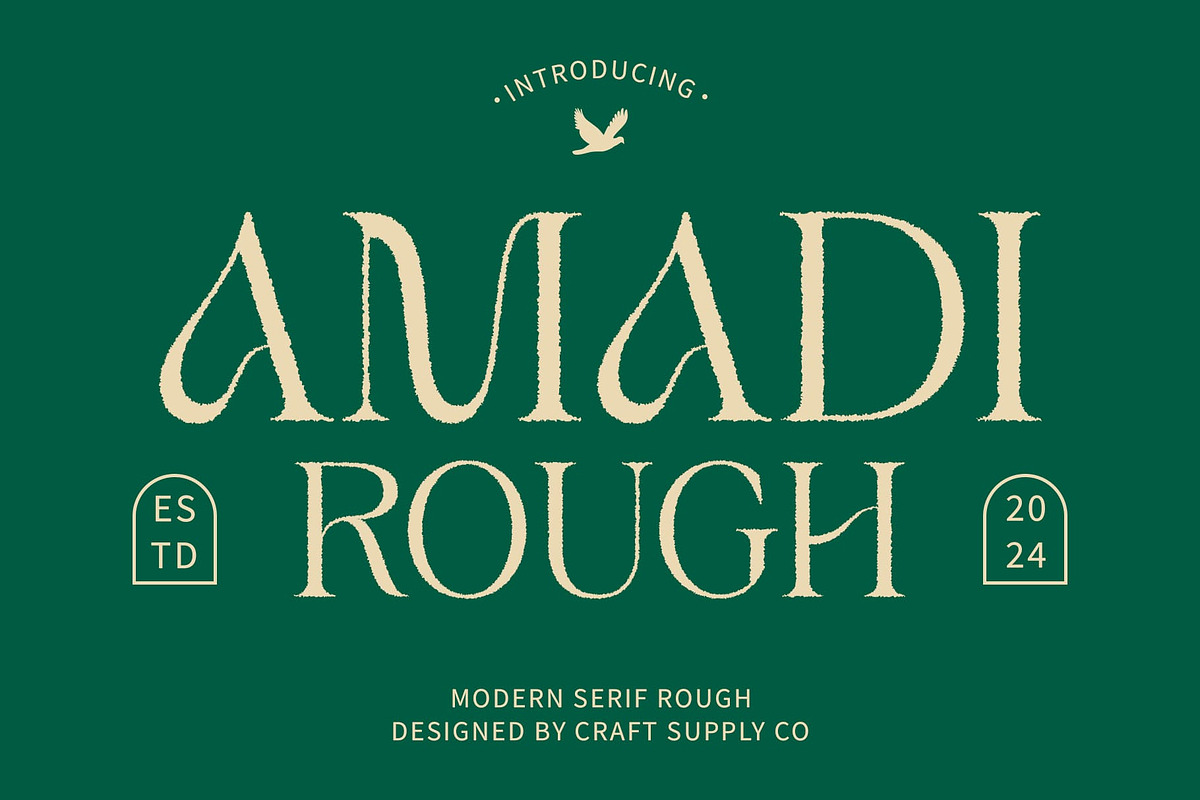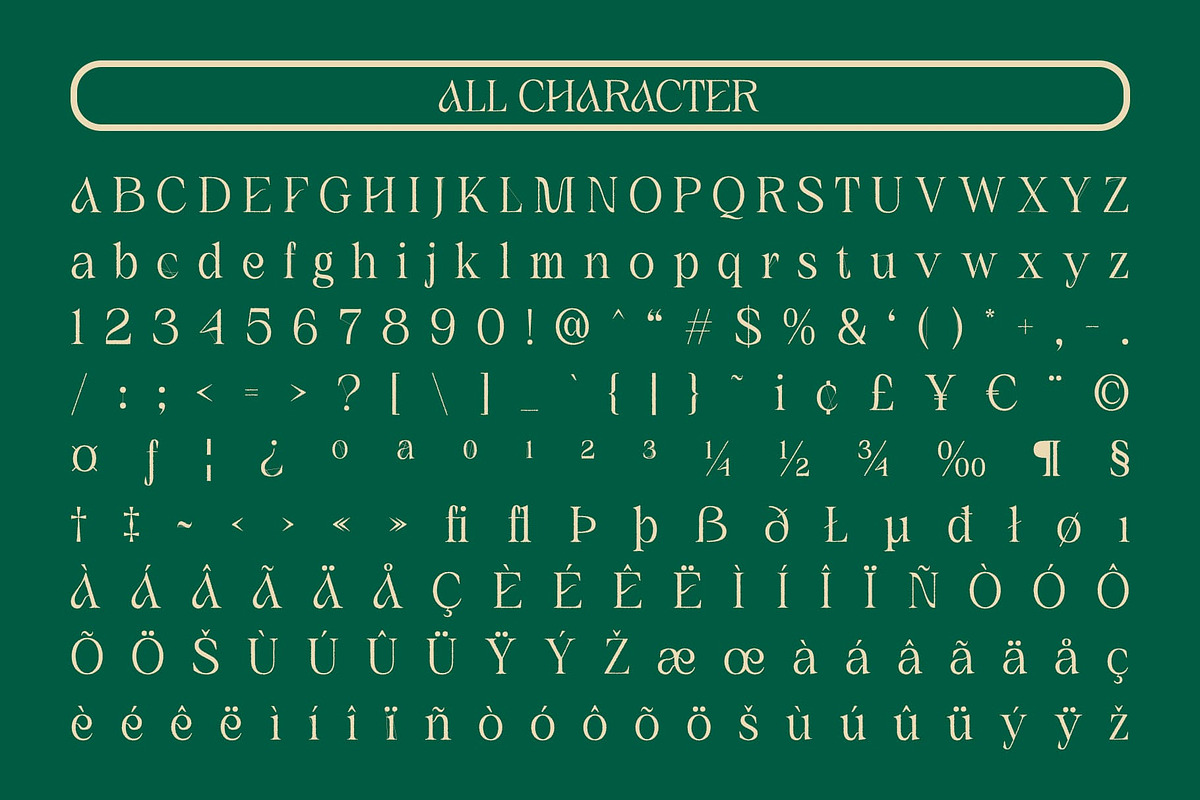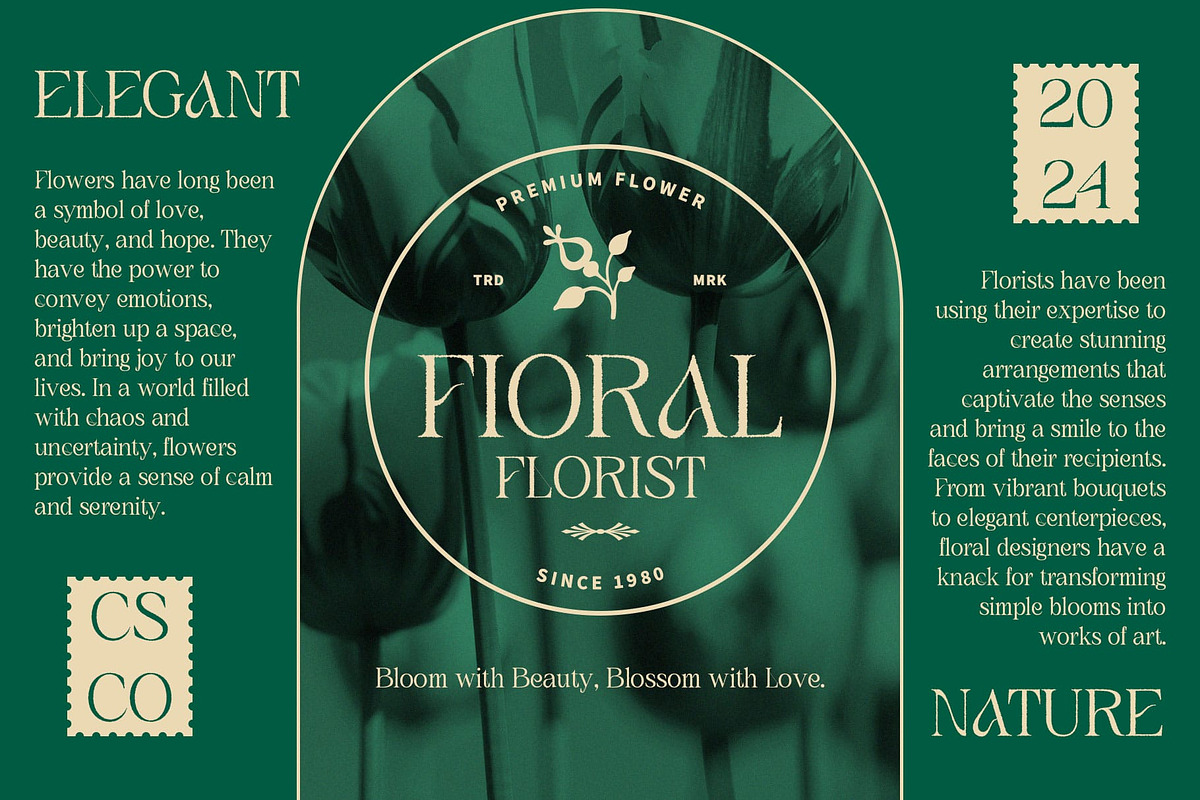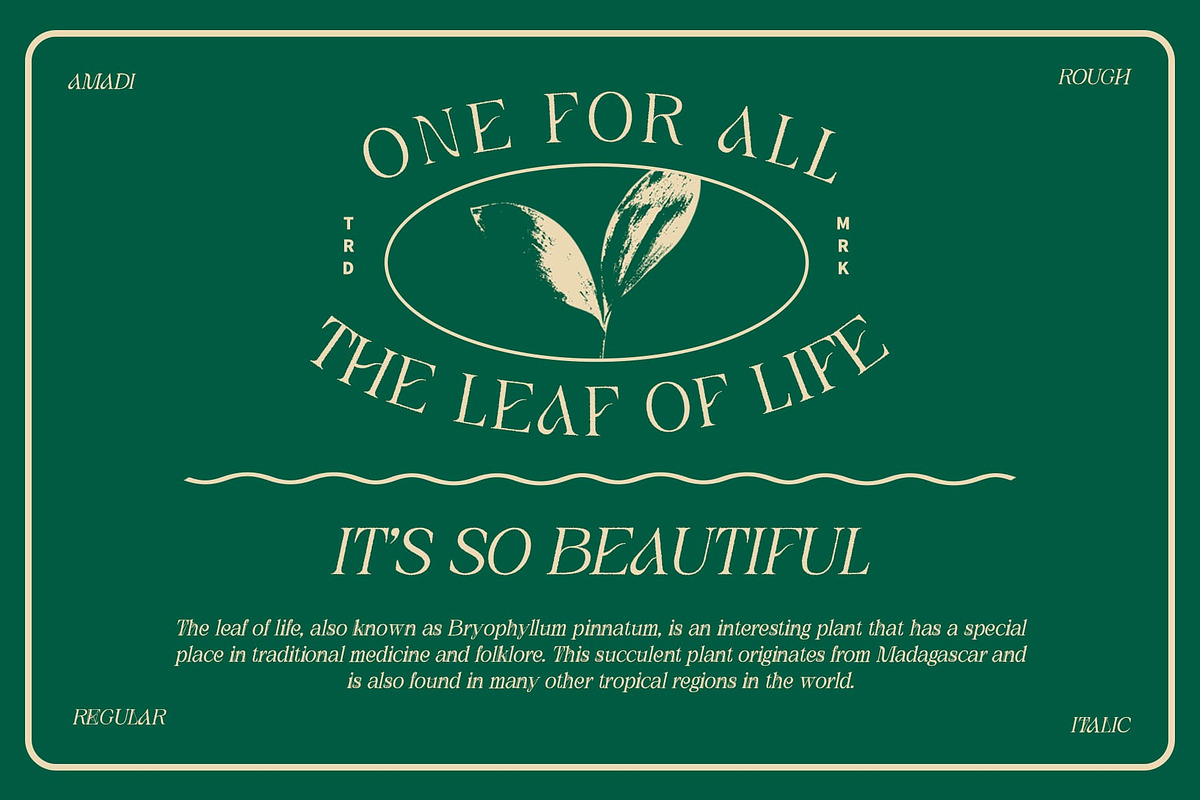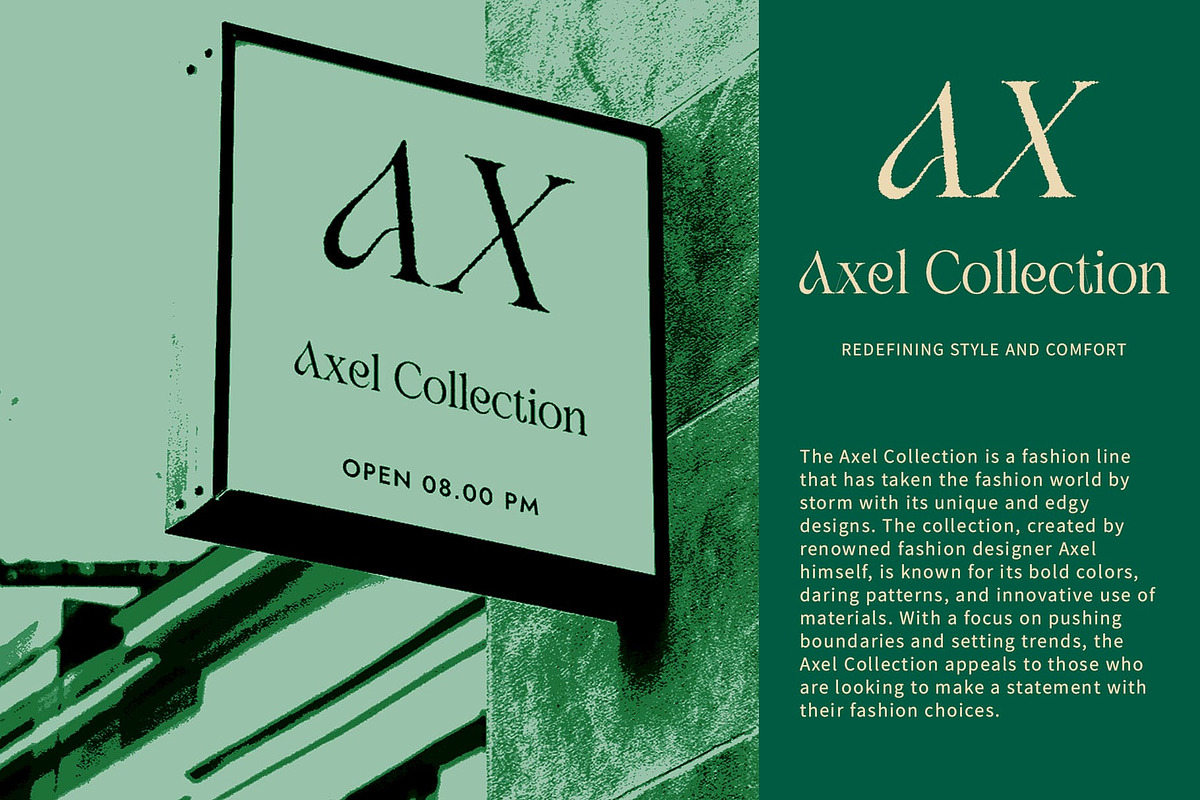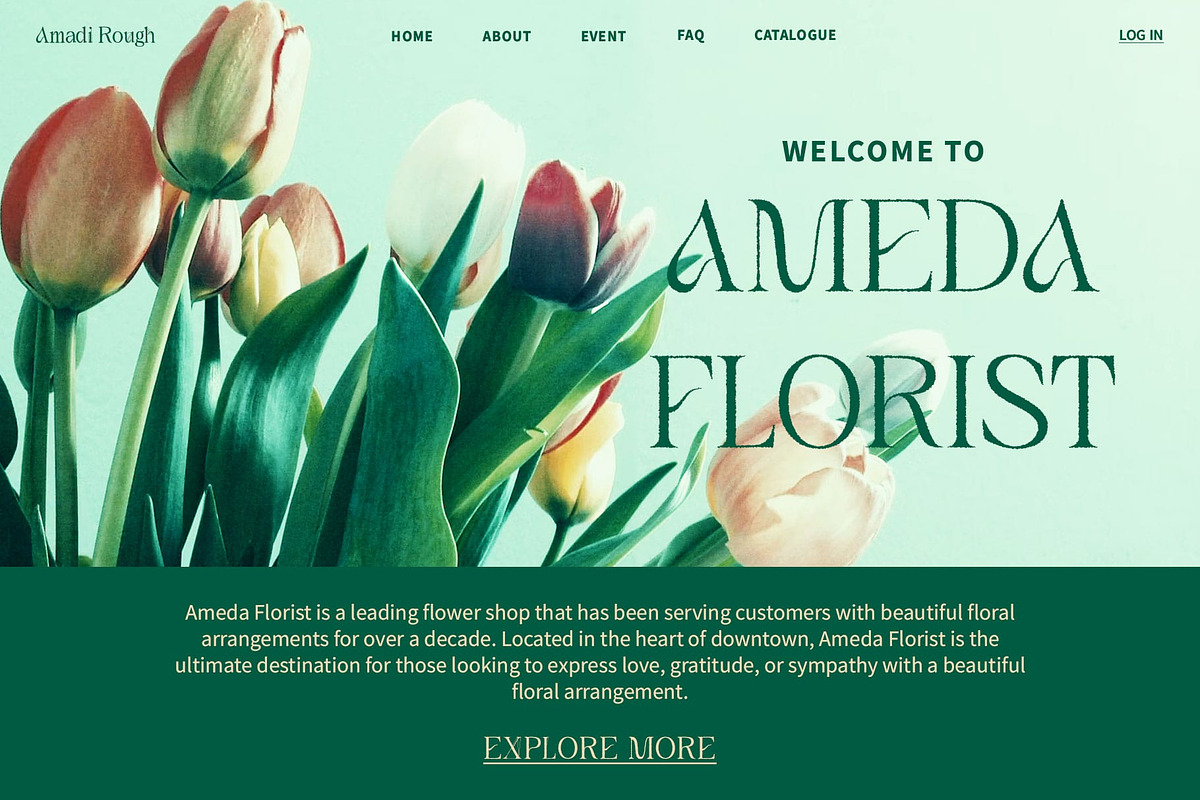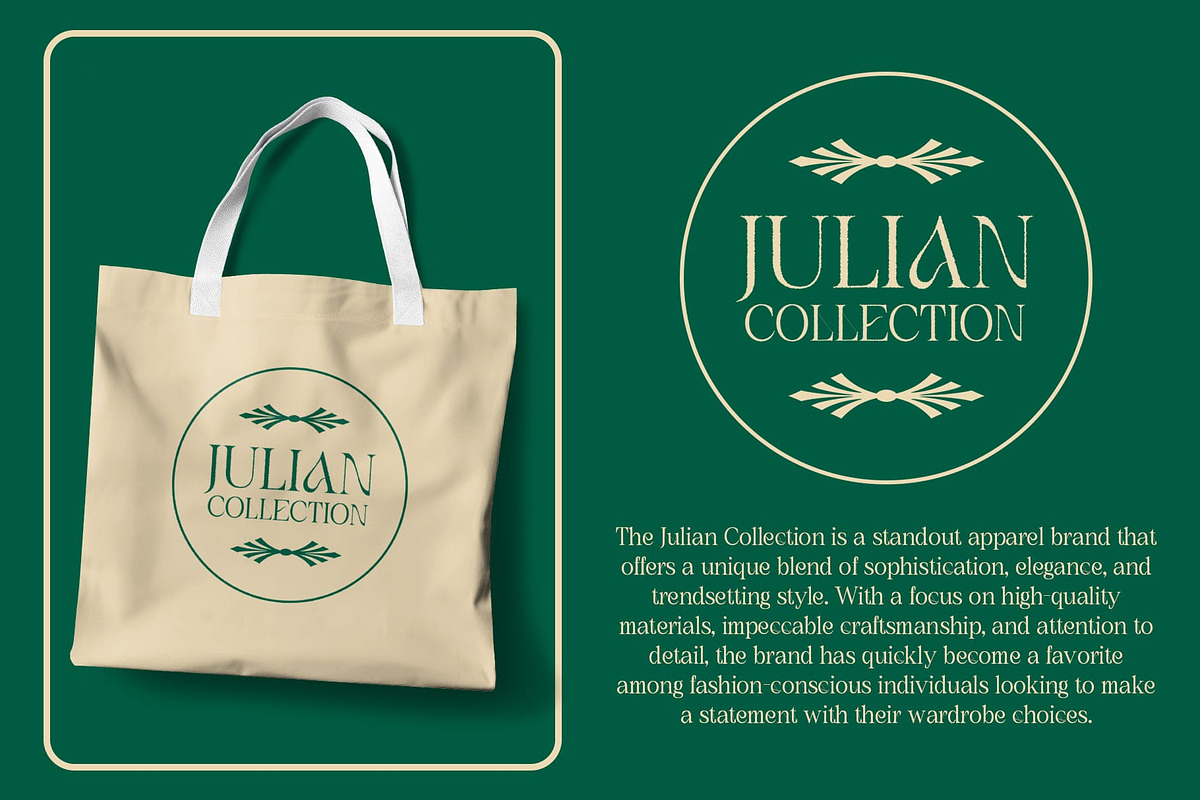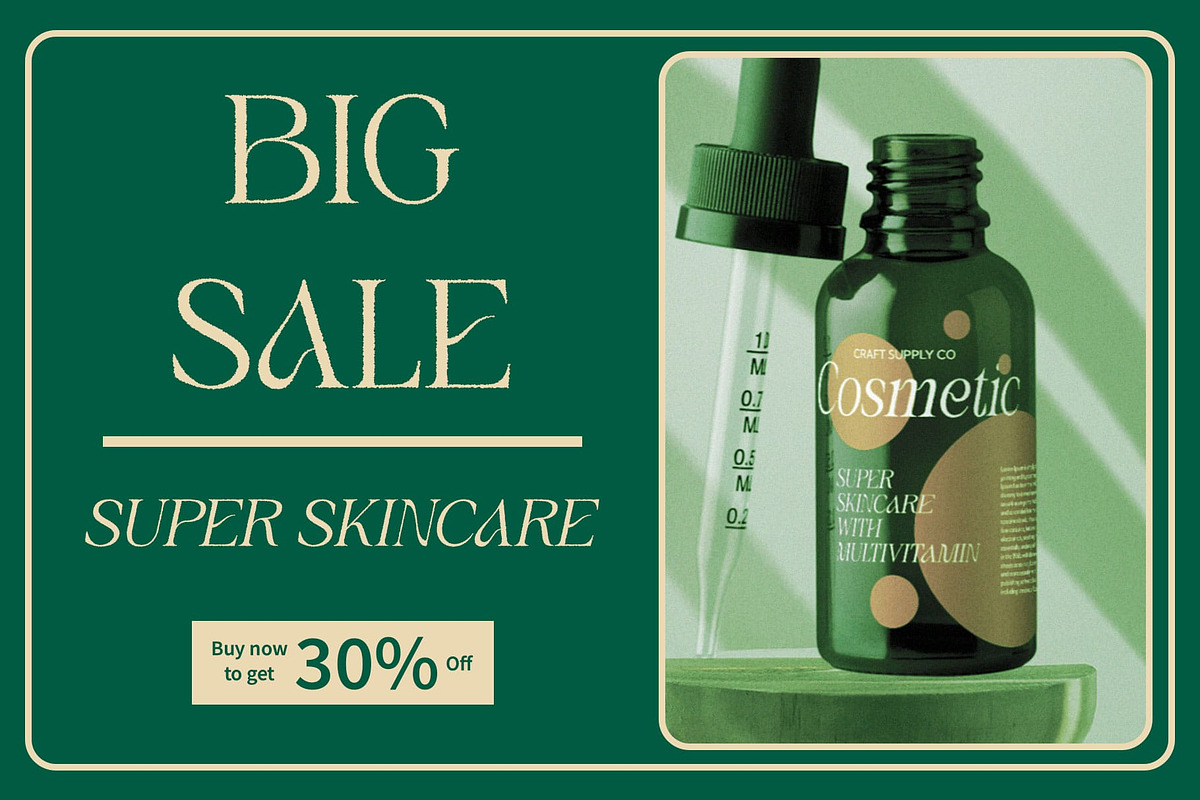
Amadi Rough
Amadi Rough: Capturing Art Nouveau Elegance
Art Nouveau Inspiration Amadi Rough presents the elegance of Art Nouveau in captivating serif display form. Each letter reflects the beauty and distinctive detail of this iconic artistic era.
Rough Texture for Vintage Vibes With its charming rough effect, this font brings forth a distinctive vintage vibe. Each letter feels authentic and organic, creating a deep sense of classic aesthetics.
Ideal for Striking Displays Specially designed for display purposes, this font stands out in various visual contexts. Whether used in posters, headlines, or branding, this font delivers a strong and compelling impression.
Versatile Application Apart from its striking beauty, this font also offers versatility in application. From editorial designs to branding projects, this font can add a touch of classic elegance.
Beauty in Imperfection This font presents beauty in imperfection with its Art Nouveau inspiration and captivating rough effect. With its ability to captivate in displays, this font is an ideal choice for design projects requiring a classic and striking visual touch.